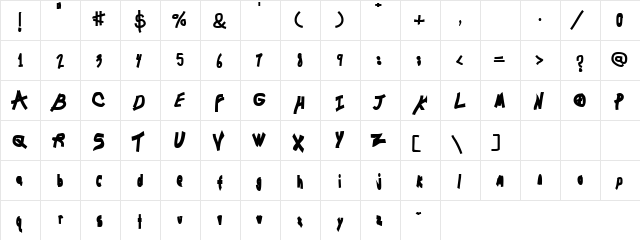
Chunkmuffin Bolded Regular
Design Context for Chunkmuffin Bolded Typeface
Chunkmuffin Bolded is a composed and adaptable typeface that performs quietly and consistently across a wide range of design contexts. The heavy weight commands attention and anchors typographic hierarchies.